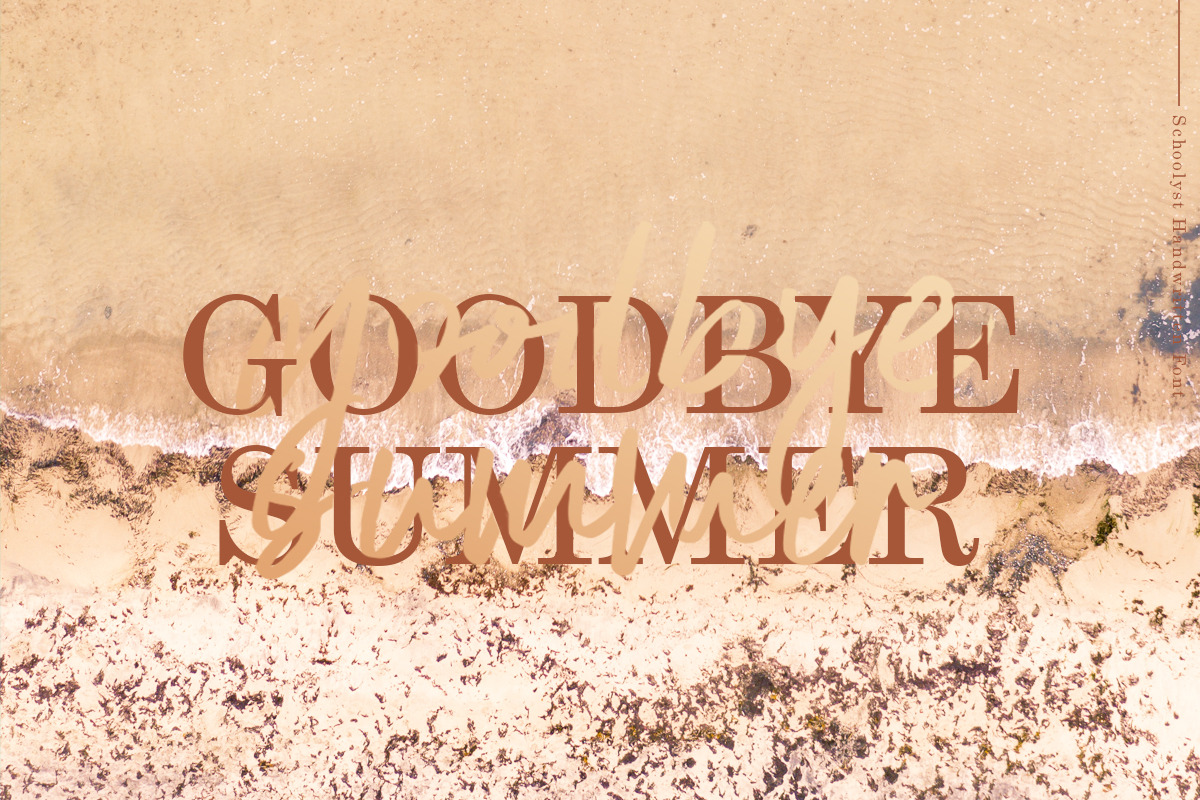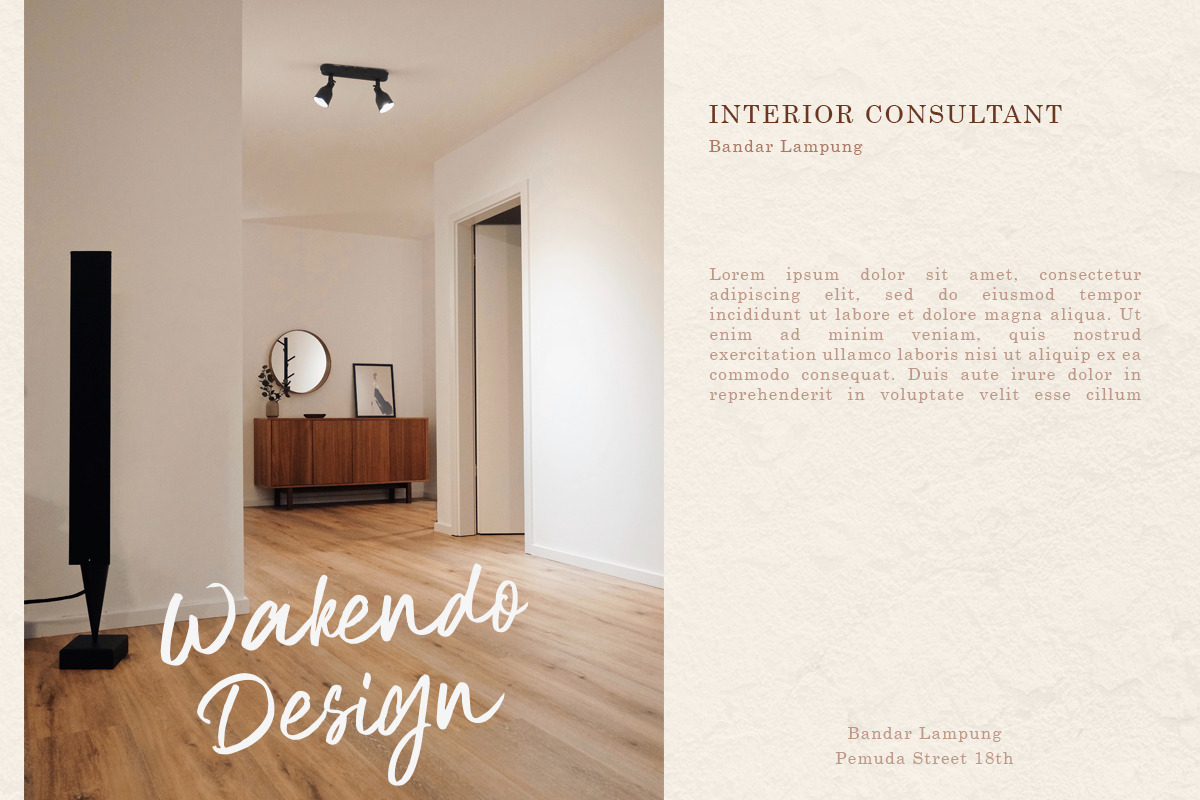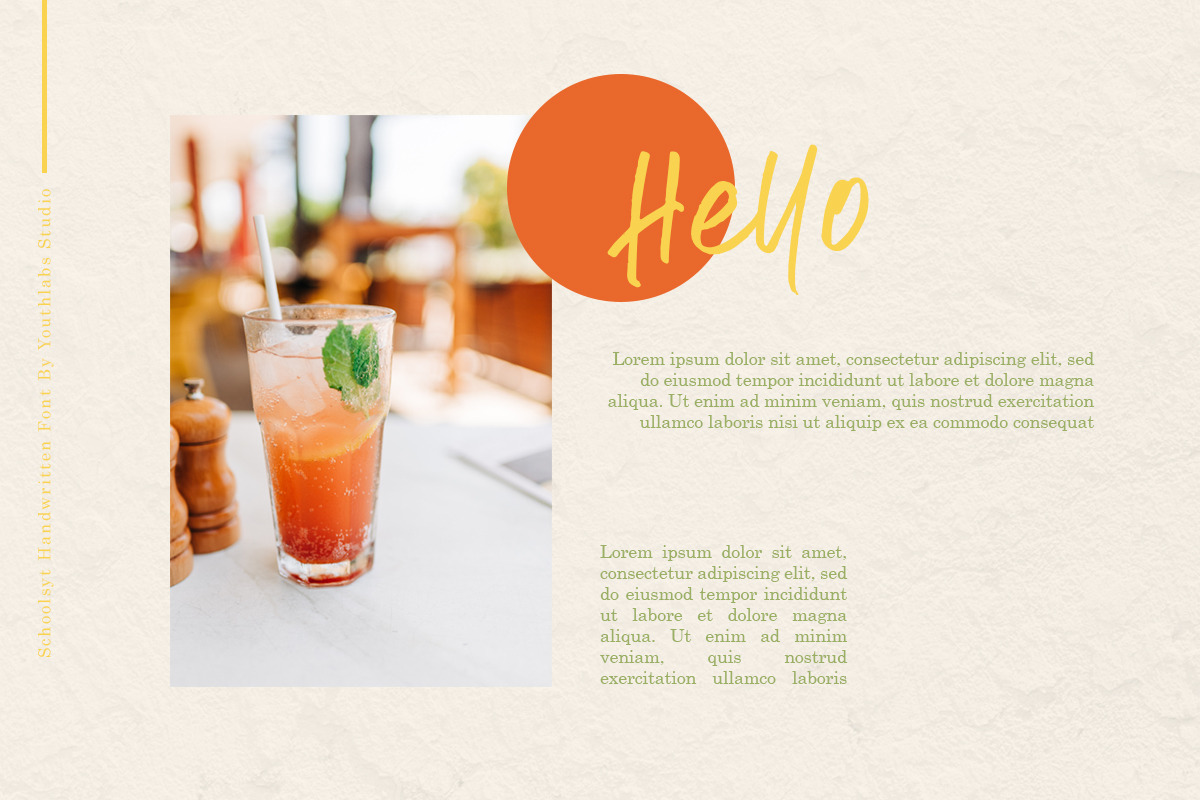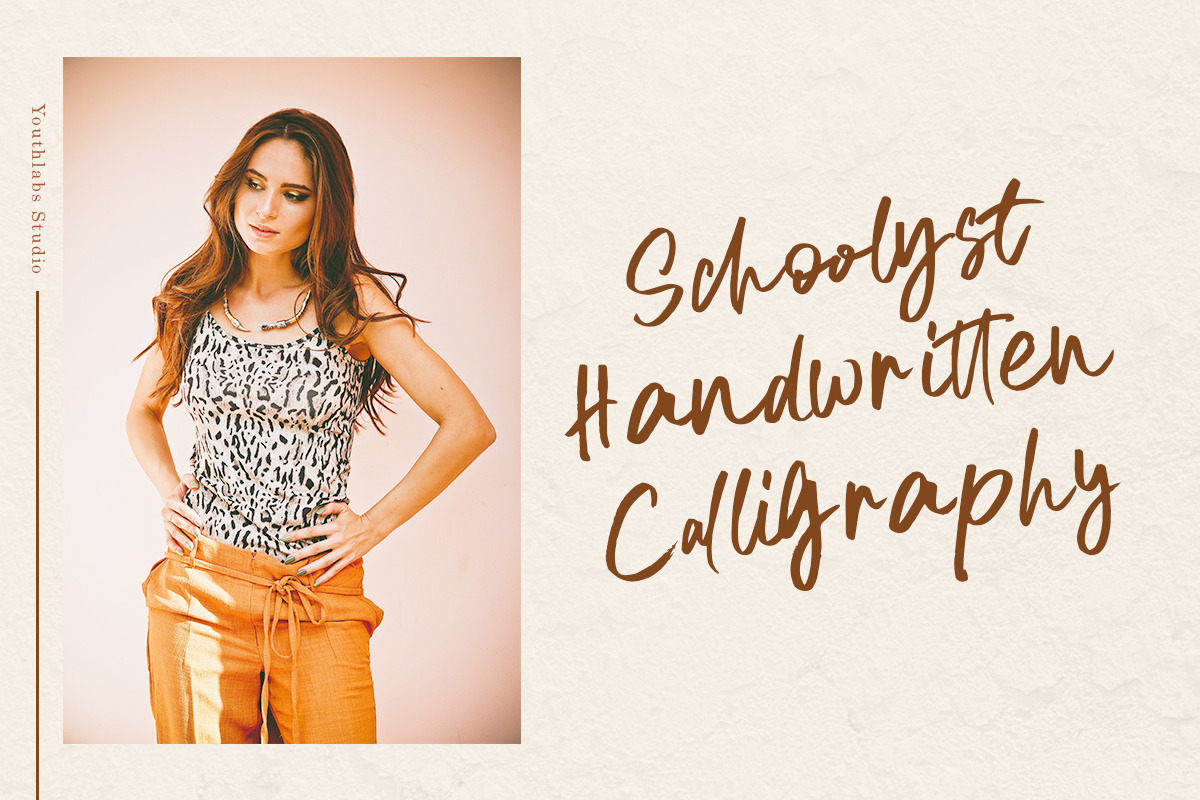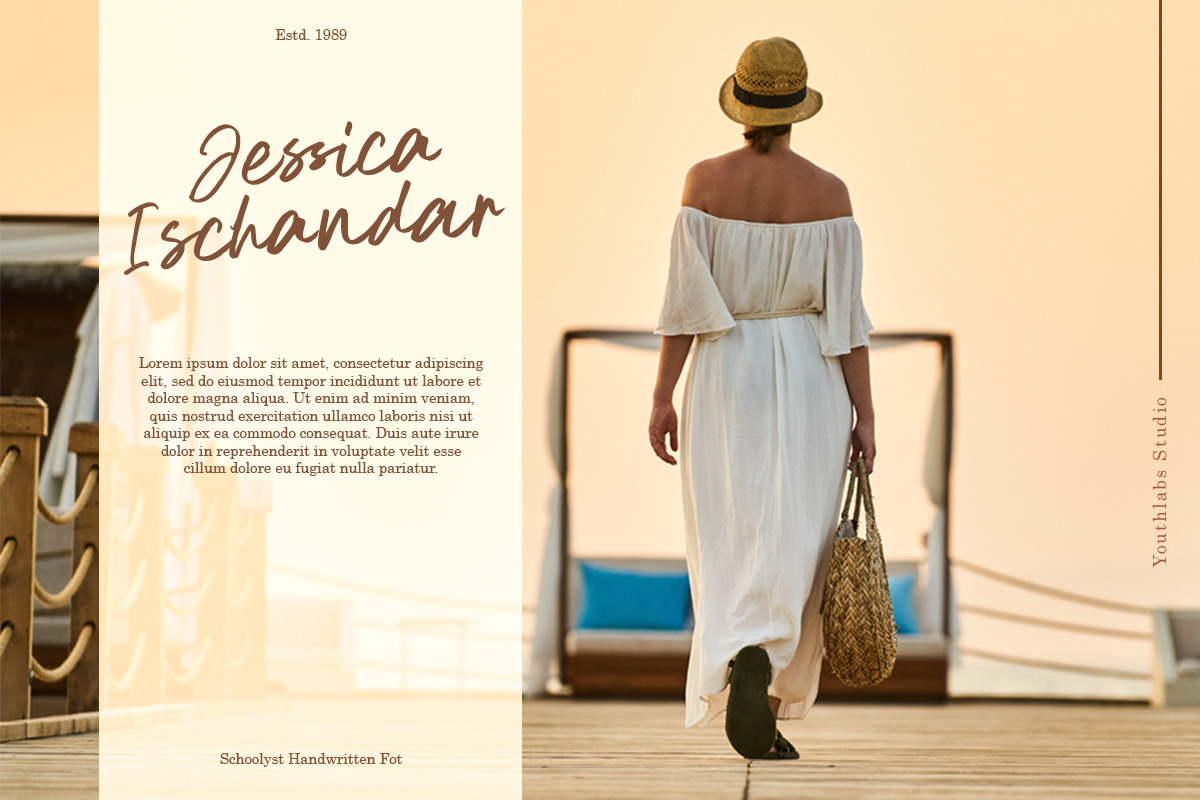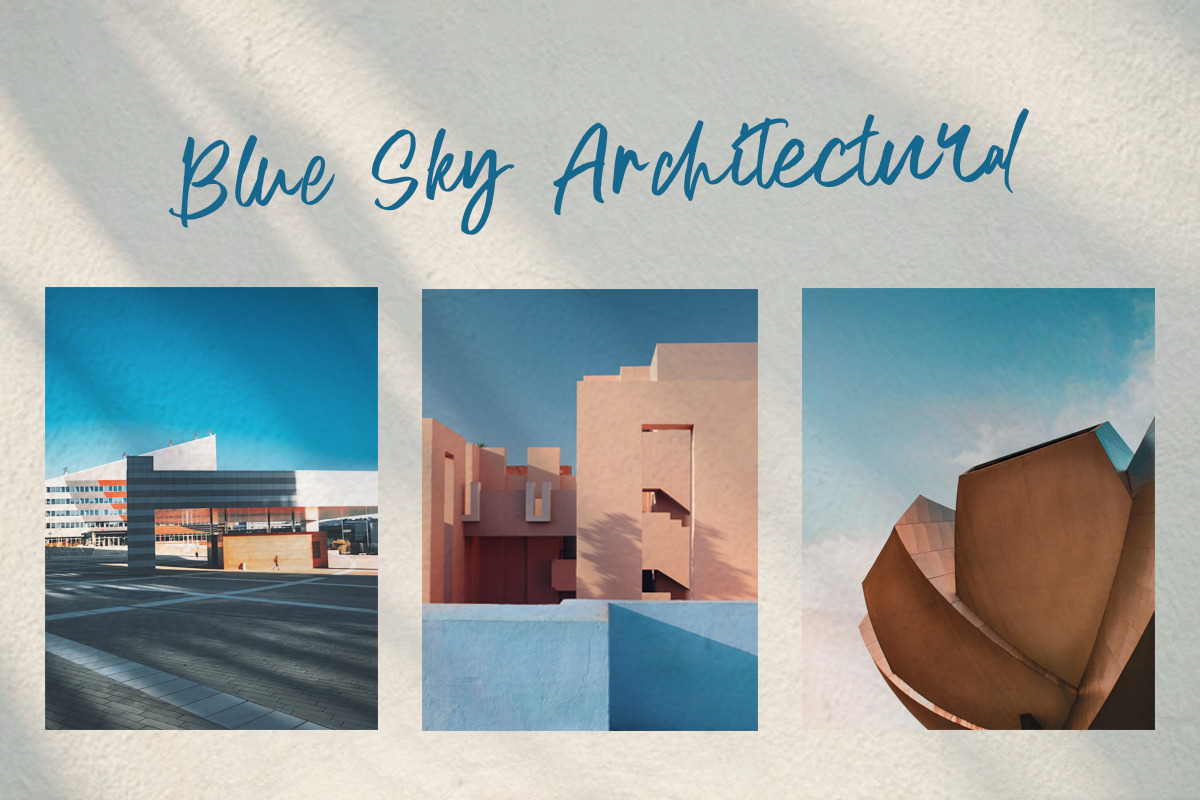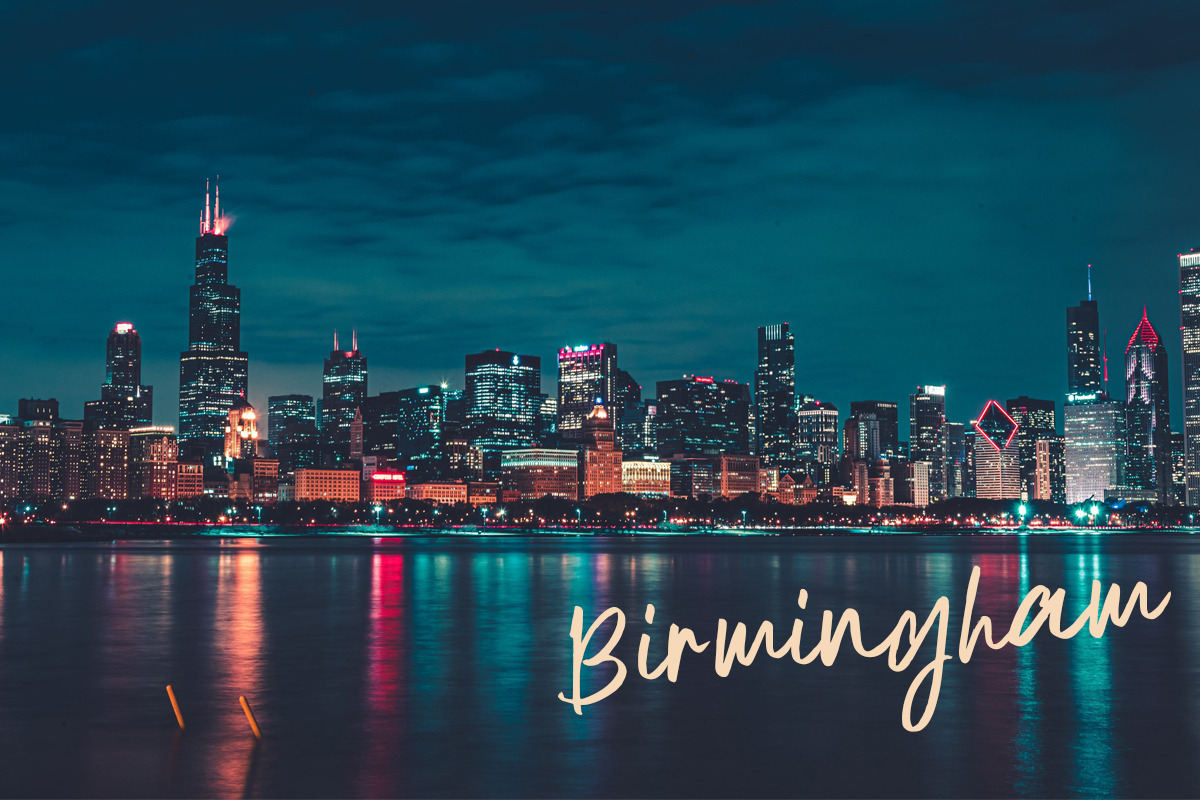
Schoolyst Handwritten Font
Introducing Schoolyst Handwitten Script Font. schoolyst Handwritten Script Font made from brush pen scracthes and scanned before move to vector mode. this is our handwritting style. Schoolyst have 2 Uppercase style and 3 Lowercase Style that make you can explore the design.
- Schoolyst have 2 Uppercase style and 3 Lowercase Style that make you can explore the design.